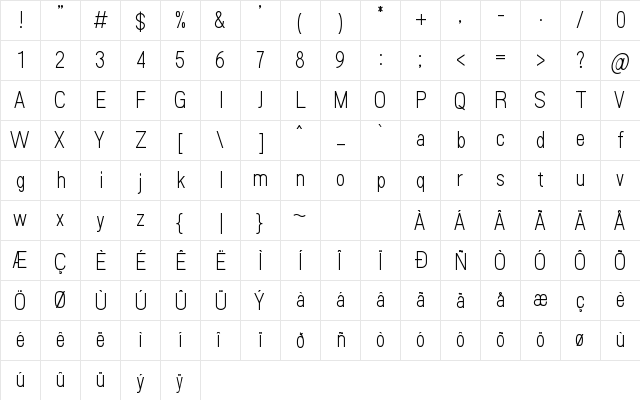
Sanlulus Light Regular
Design Context for Sanlulus Light Typeface
Sanlulus Light is a composed and adaptable typeface that performs quietly and consistently across a wide range of design contexts. The delicate stroke weight brings airiness and refinement to layouts.